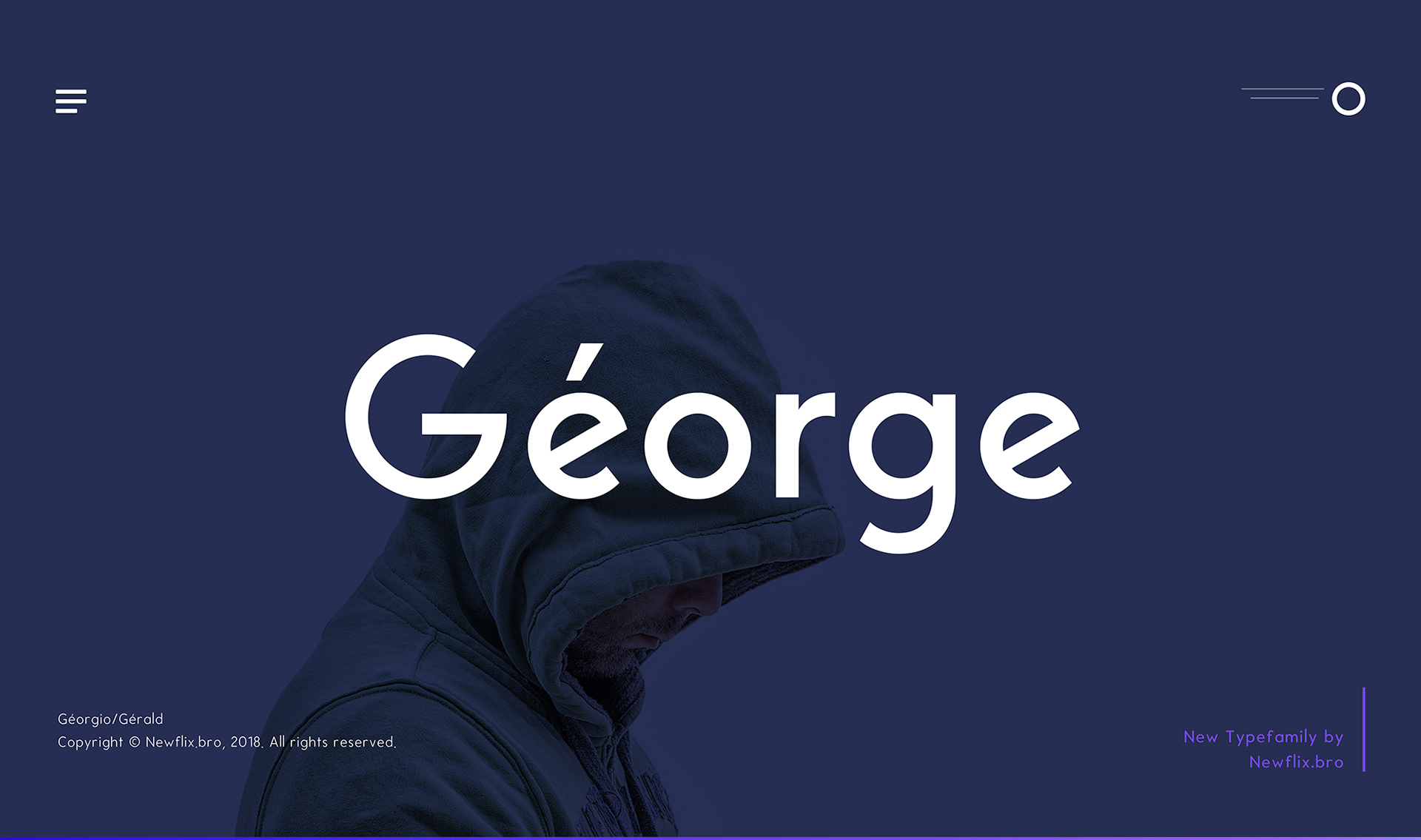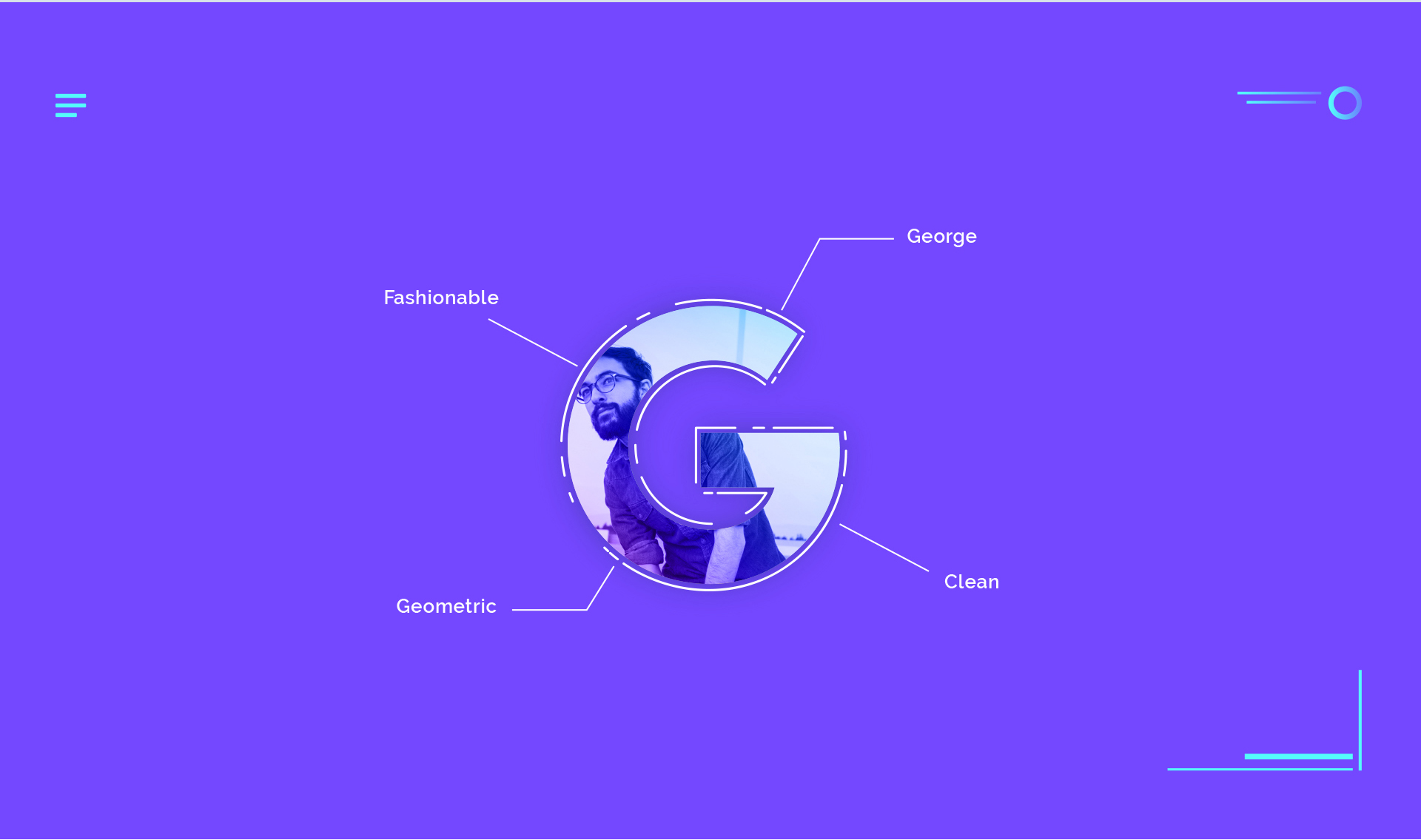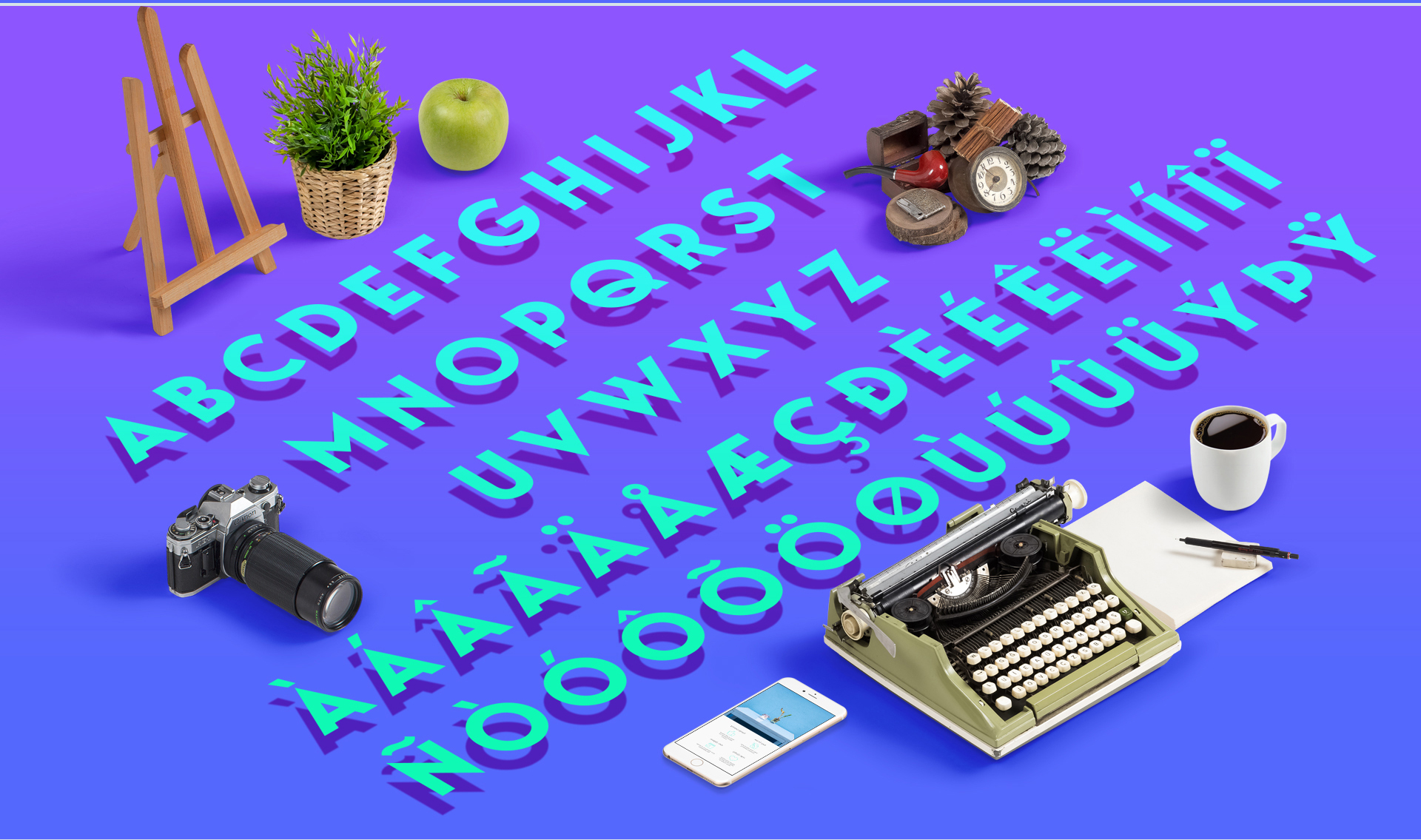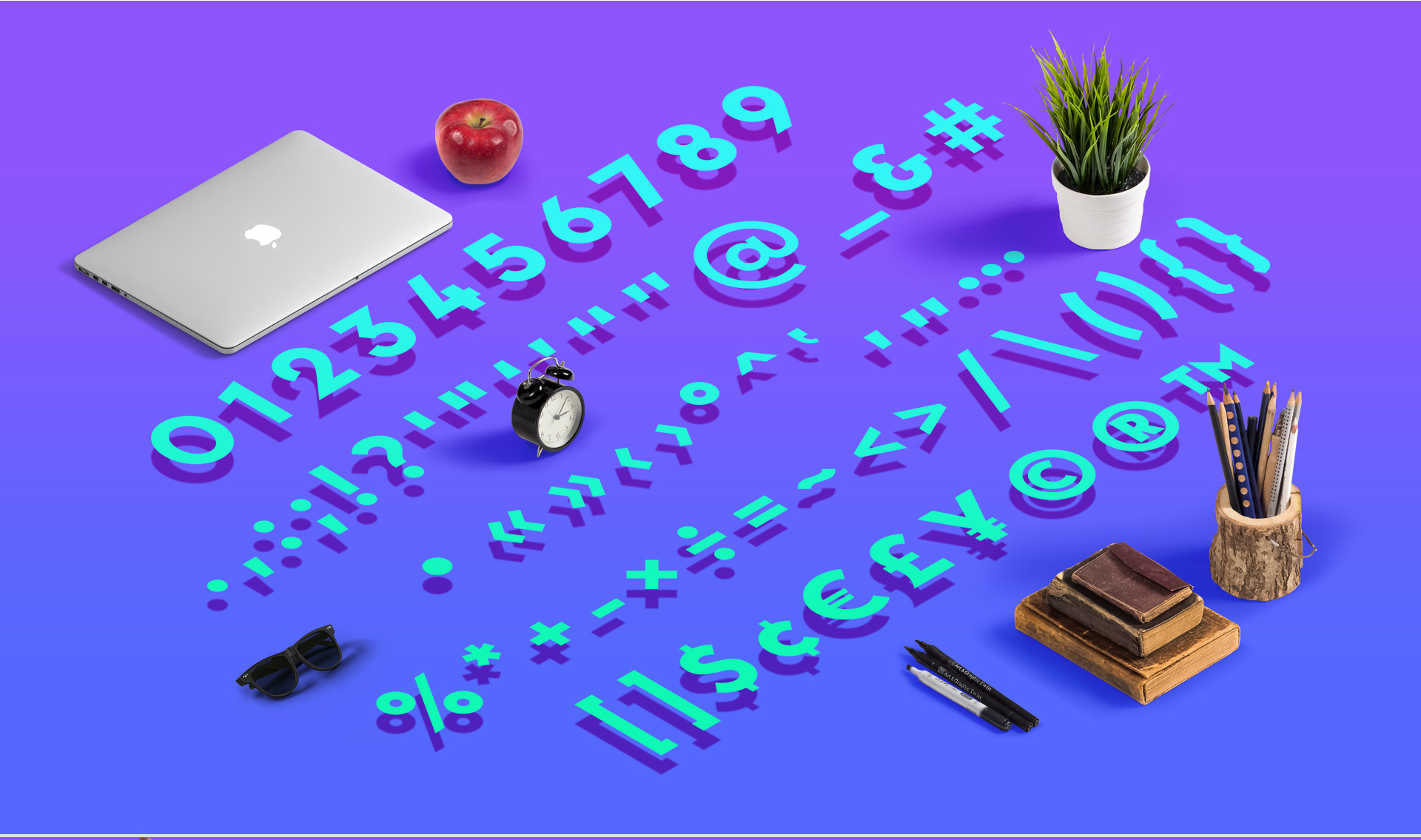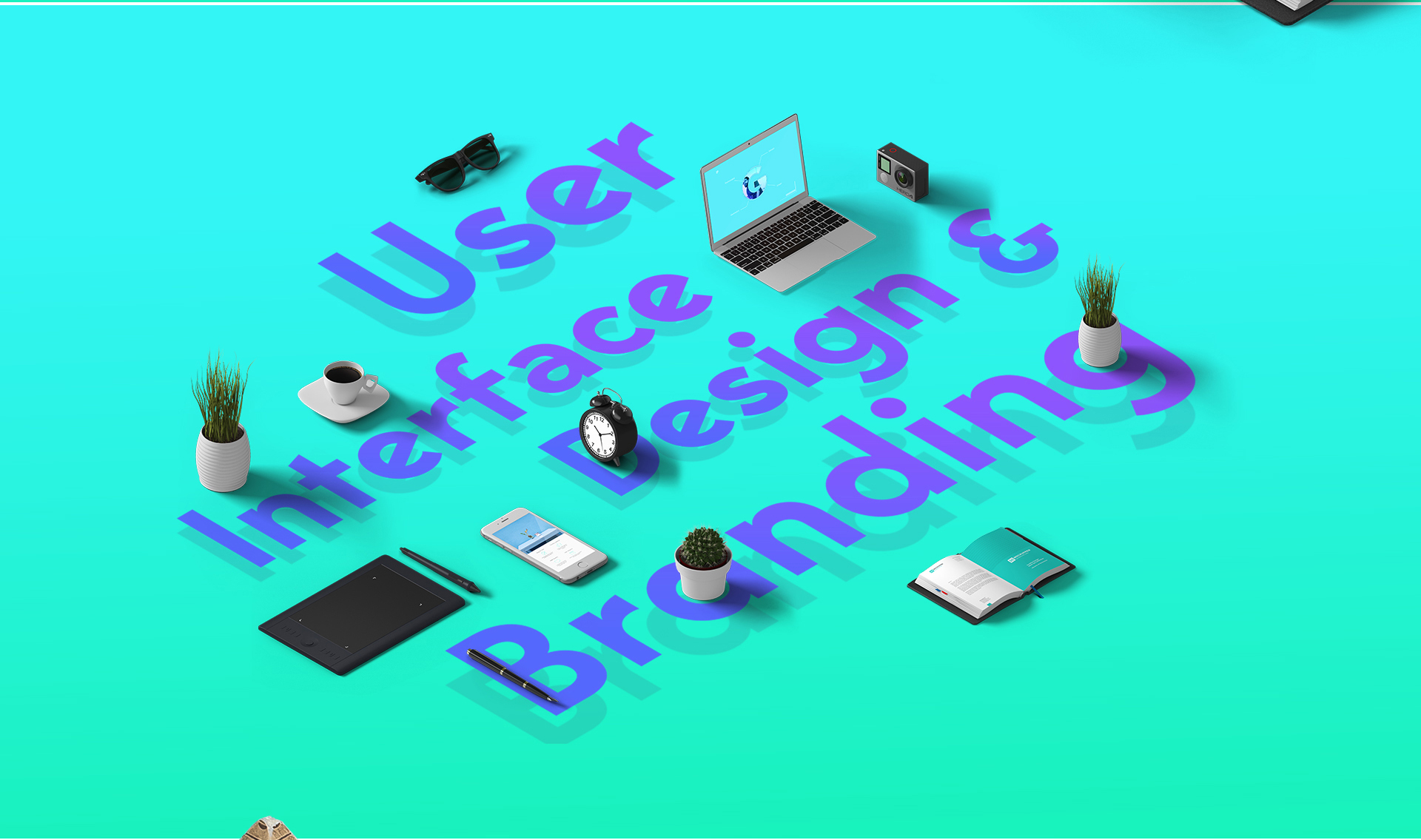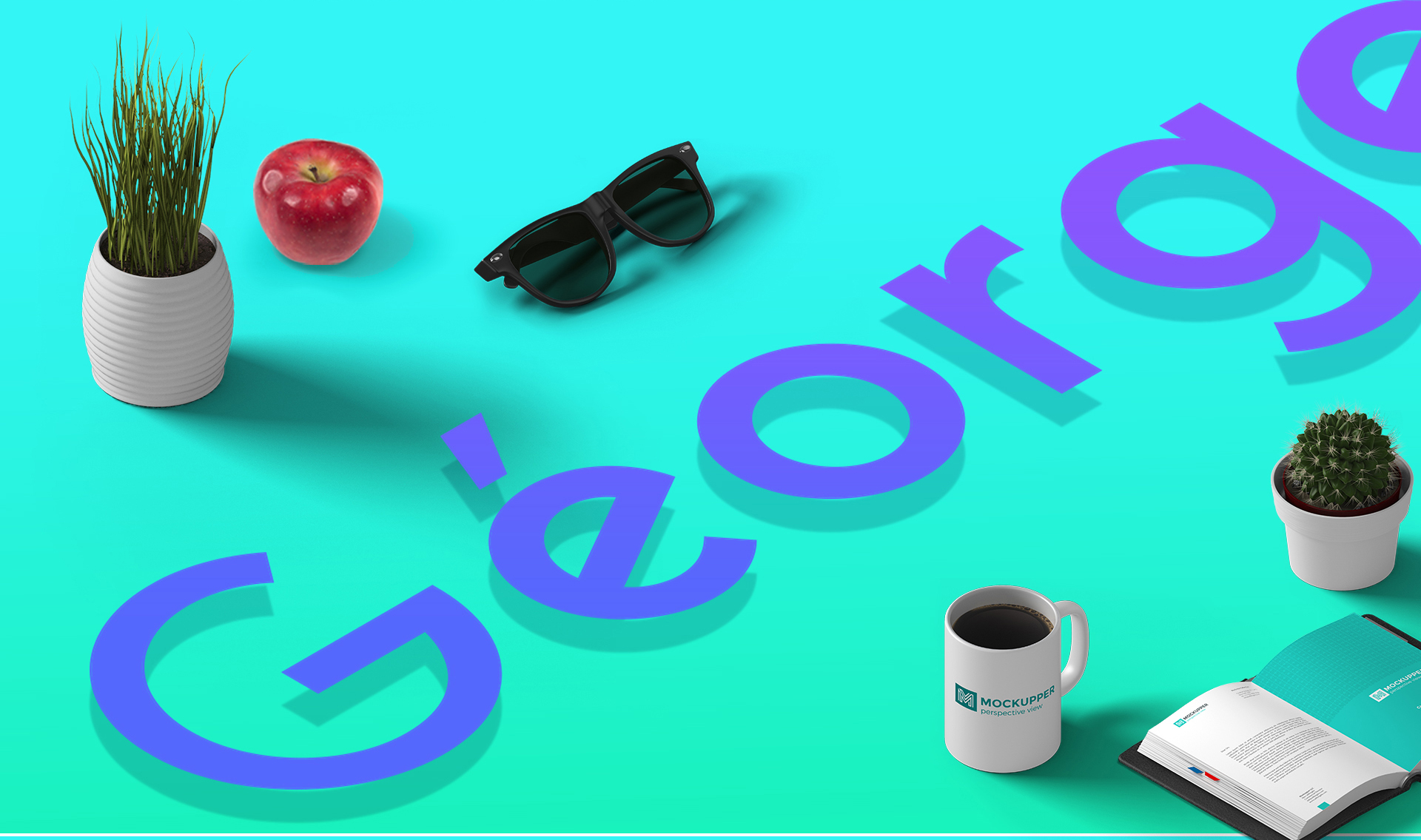
The George Font: A Modern Sans Serif for Creative Minds
I’ll never forget the struggle I faced while working on a project for a high-end fashion brand. My client wanted a font that exuded elegance and sophistication, but I was stuck with a bland, generic sans serif that just wouldn’t cut it. That’s when I stumbled upon the George font, and it completely transformed my design. In this article, I’ll share my experience with George, an elegant and contemporary sans serif font family that’s become a staple in my design toolkit.
First Impressions: What I Love About George
George is a stunning font family consisting of 6 fonts, designed with clean and stylized modern geometry. Here are some things that I absolutely love about George:
- ✨ Elegant and contemporary design that’s perfect for both texts and headlines
- ✅ Harmonious appearance that makes it easy to read and visually appealing
- 🌈 Versatile font family with 6 styles to choose from
- 💻 Designed with modern geometry, making it perfect for digital and print projects
Honest Review: The Not-So-Perfect George
While George is an amazing font, it’s not without its quirks. Here are a few things to keep in mind:
- 🤔 Limited language support: George currently supports a limited number of languages, so make sure to check the font’s capabilities before using it for a project.
- ⚠️ Some users may find the font too similar to other popular sans serifs, but trust me, George has its own unique charm.
The Story Behind George
George was designed with the goal of creating a modern sans serif font that exudes elegance and sophistication. The designer aimed to create a font that would be both clean and stylized, with a harmonious appearance that’s easy on the eyes. While I couldn’t find any information on the designer’s personal inspiration, it’s clear that George was crafted with love and attention to detail.
- Q: What type of projects is George best suited for?
- A: George is perfect for projects that require a modern and elegant sans serif font, such as fashion branding, magazines, and digital interfaces.
- Q: Is George a script font?
- A: No, George is a sans serif font family with a clean and geometric design.